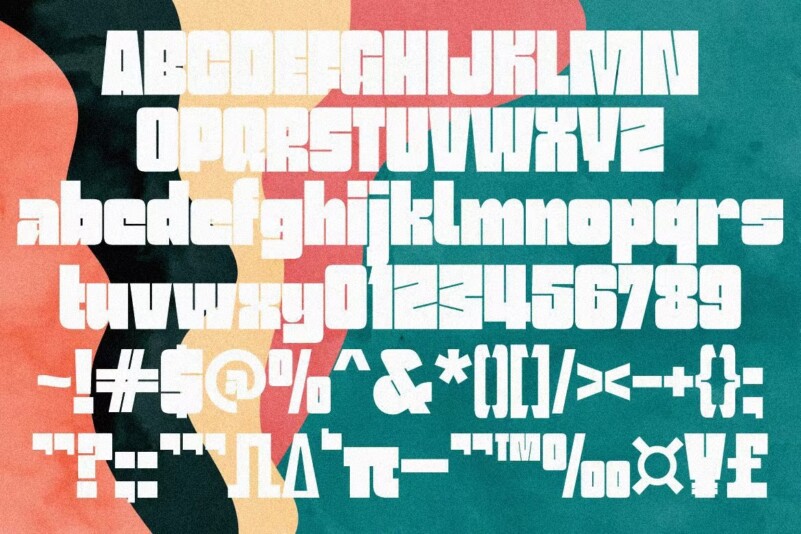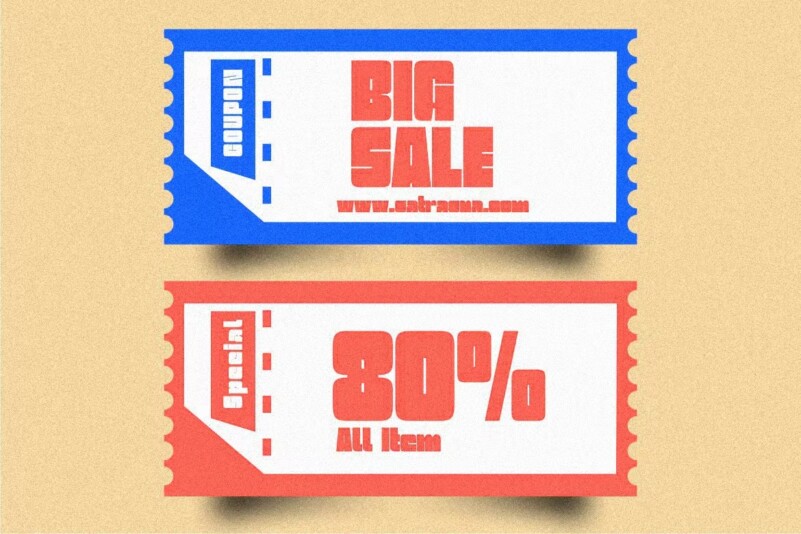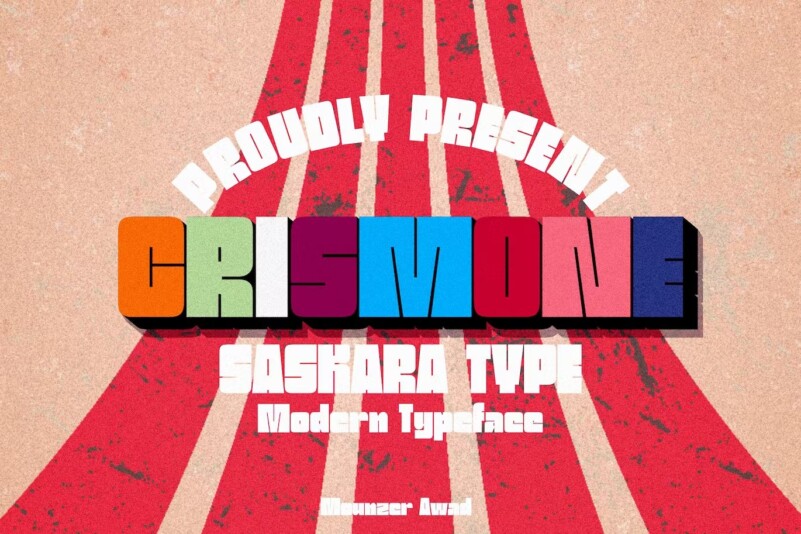
Crismone font
Crismone is a Modern style Sanserif font with a retro touch packed strong and dynamic, Great Font for printing logos, labels, Brochures, Signs, Pubs, T-shirt Design, Tattoo Shop, Barbershop, Handmade Brands, whatever related to modern style, vintage style, retro style etc.